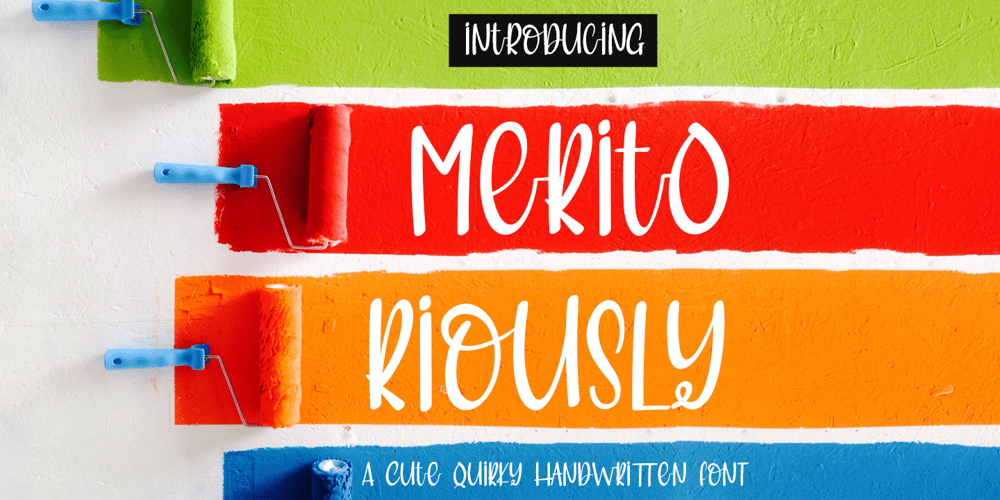
Meritoriously Font Family was designed by Sarwo Edhi Prayitno and published by Haksen. Meritoriously contains 1 styles and family package options. Introduce my New Product “Meritoriously” a cute quirky handwritten font. Very suitable for greeting cards, branding materials, business cards, quotes, posters, and more!These fonts are perfect for all brand :)Features :- UpperCase & Lowercase Numerals & Punctuations- Ligatures Multilingual characters (AÀÁÂÃÄÅCÇDÐEÈÉÊËIÌÍÎÏNÑOØÒÓÔÕÖUÙÜÚÛWYÝŸŸÆßÞàáâãäåæçèéêëìíîïðñòóôõöøùúûüýÿ)PUA ENCODEDZIP INCLUDED:Thanks for visited and Please contact me if you have any questions.My Best,Haksen